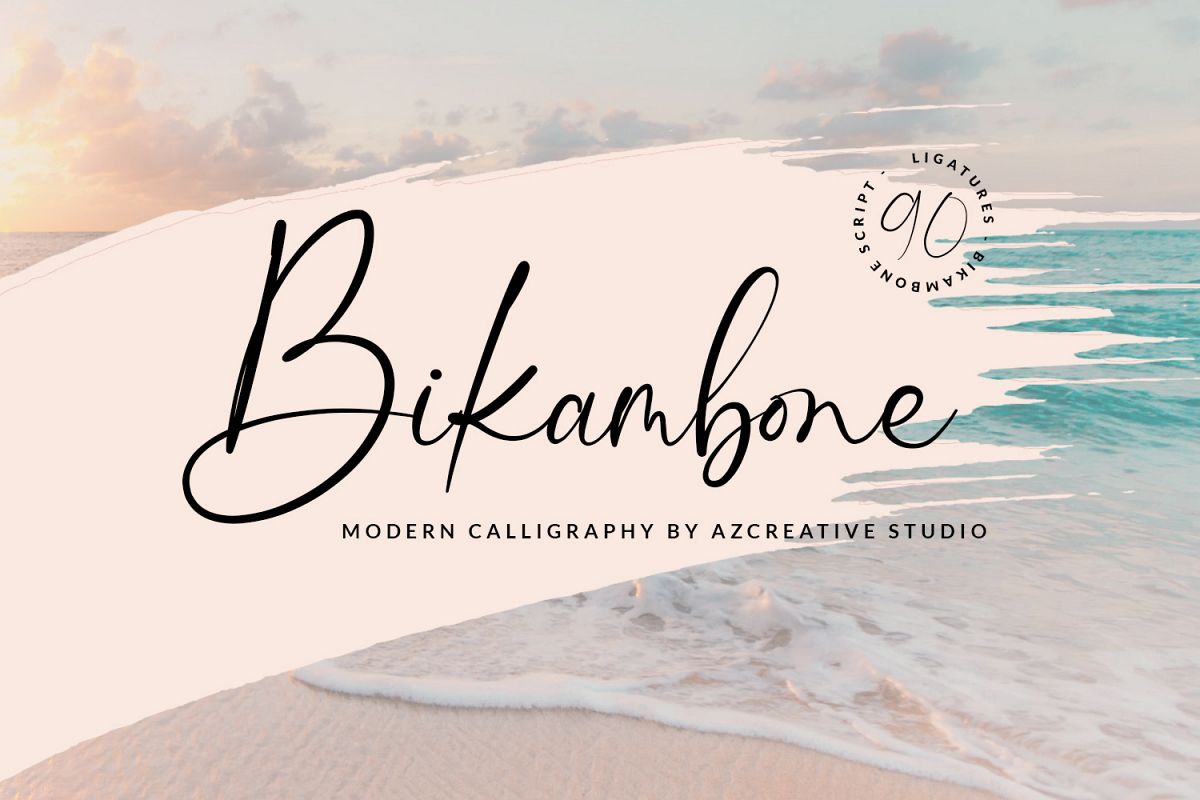
Bikambone - Beautiful Calligraphy Font
Bikambone
Bikambone is a modern and casual handwritten style font that is perfect for you to use in all kinds of designs such as invitation designs, posters, logos, flyers, and others.
• Ligature of 90 sets of letters